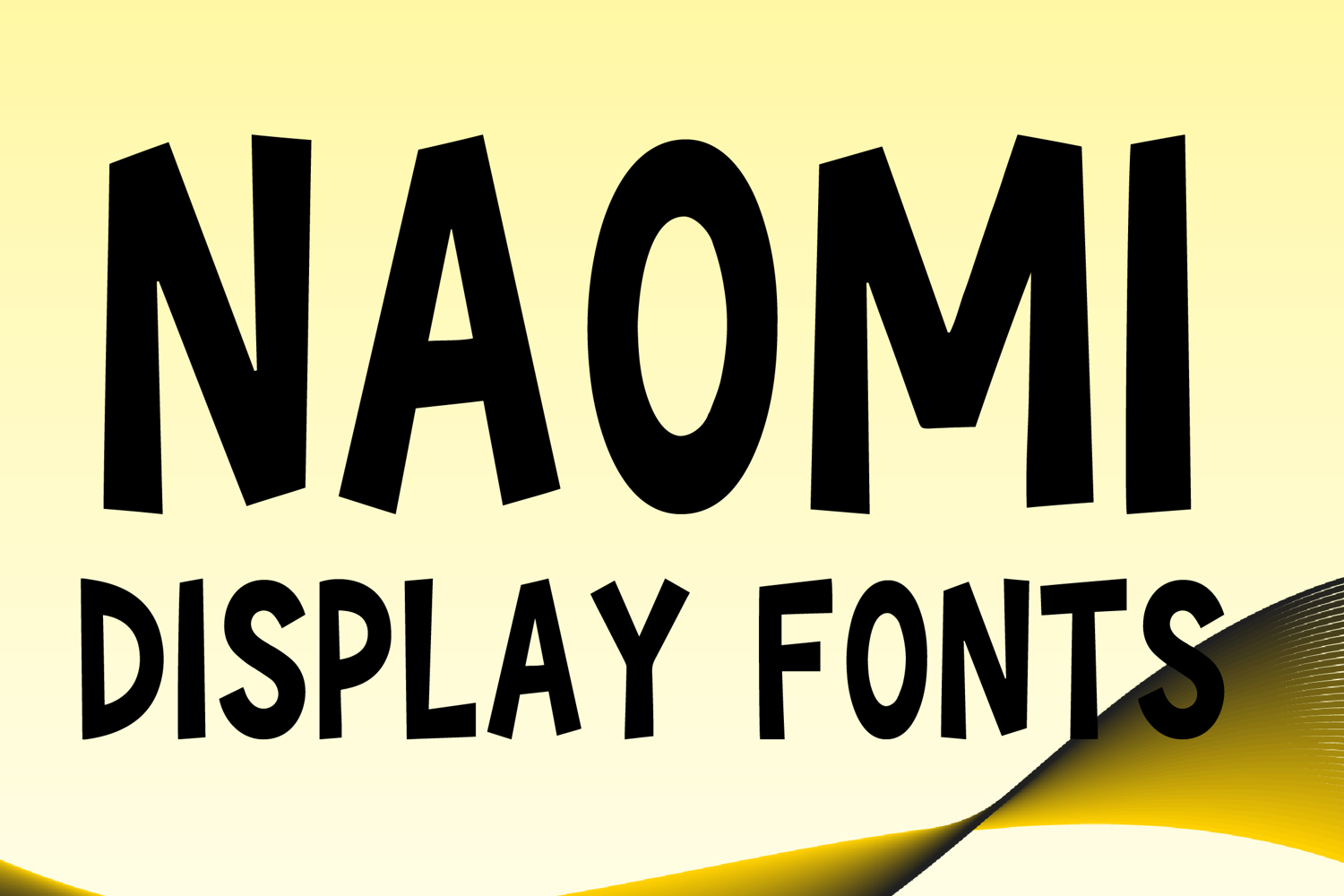
NAOMI
NAOMI is a bold display font with a tall geometric style and strong modern character. Its uppercase letterforms feature thick angular strokes, slightly irregular proportions, and a clean handcrafted feel that create a powerful, stylish, and eye-catching look. Designed with uppercase letters A–Z and numbers 0–9, NAOMI is perfect for branding, posters, packaging, logos, headlines, and social media graphics that need a bold and memorable statement.